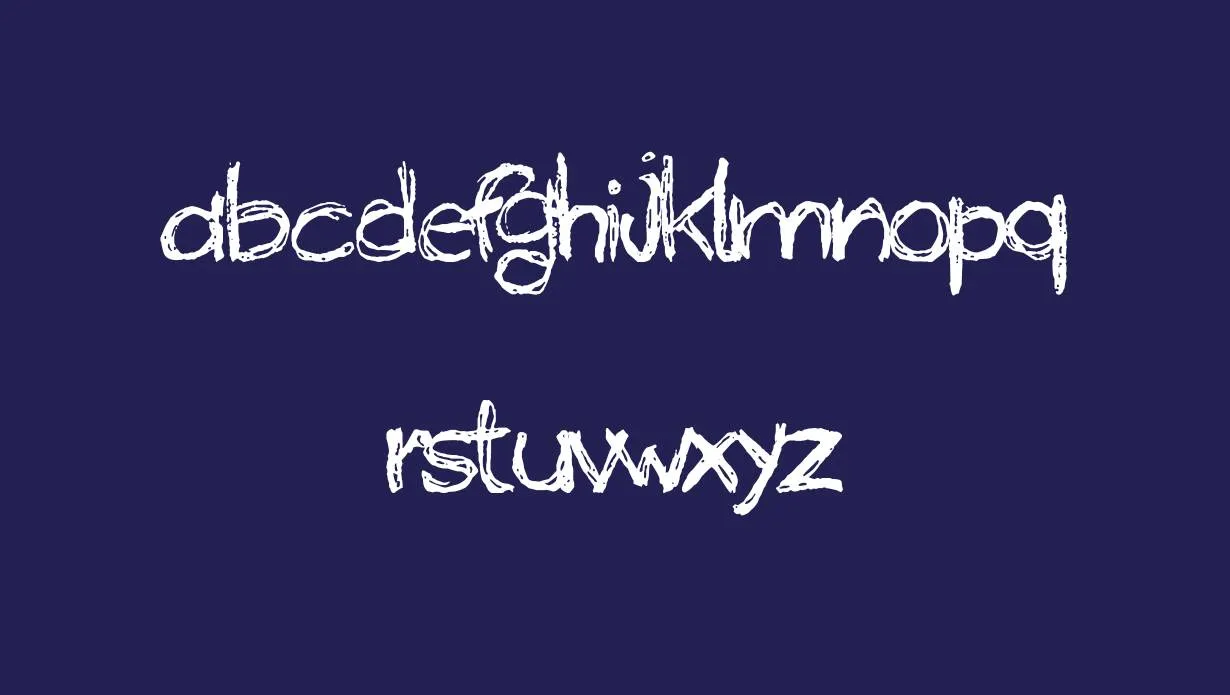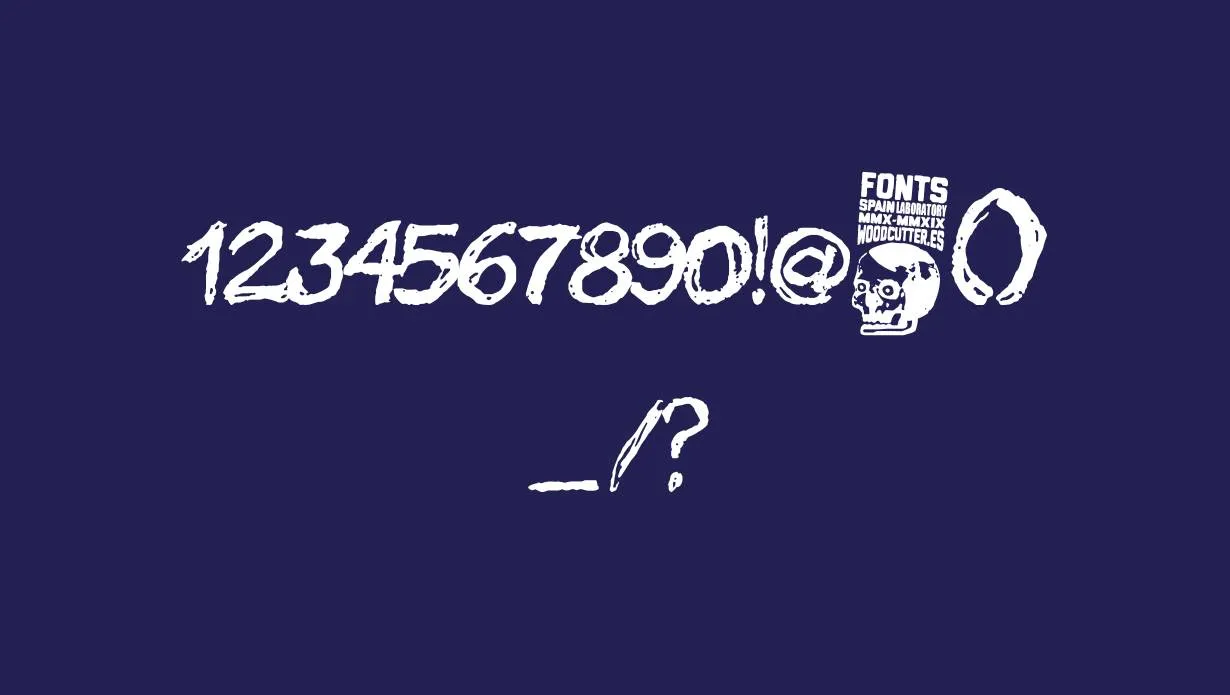
We’re introducing Lapicero Font, a script font that was created by a well-known designer Woodcutter Manero along with TTF and OTF formats and a single style.
Lapicero Font Family